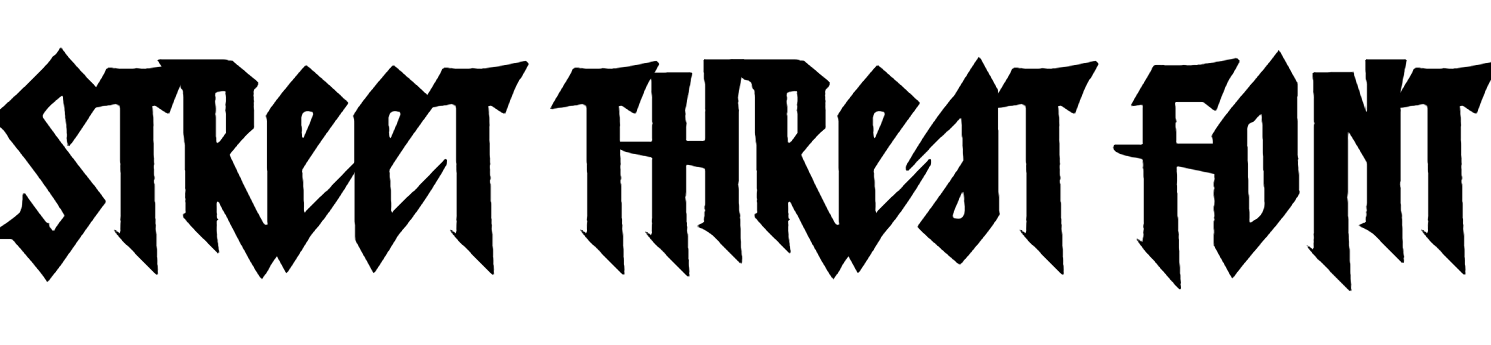
Street Threat
Street Threat is a graffiti font made by Allison J James (2022). Chunky, loud letters inspired by wall art and street tags give it plenty of attitude. You can download it for free and test it with your own words in the preview above.
Street Threat covers the full alphabet in upper and lowercase, plus all ten numbers, so you can set names, dates and prices without switching fonts. Common punctuation such as &, !, ? and @ is included as well. It also has the accented letters you need for Spanish, French, German, Portuguese and Italian.
Think of Street Threat for streetwear, album covers and urban posters. Use it big and give it room. Graffiti letters are packed with detail, so they look best as one or two words, not full sentences.
Who designed Street Threat font?
Does Street Threat support accented letters?
Yes. Street Threat includes the accented letters needed for Spanish, French, German, Portuguese and Italian, so it works for more than just English.
What fonts pair well with Street Threat?
Balance it with a heavy, simple sans serif like Bebas Neue or Anton for the supporting text.